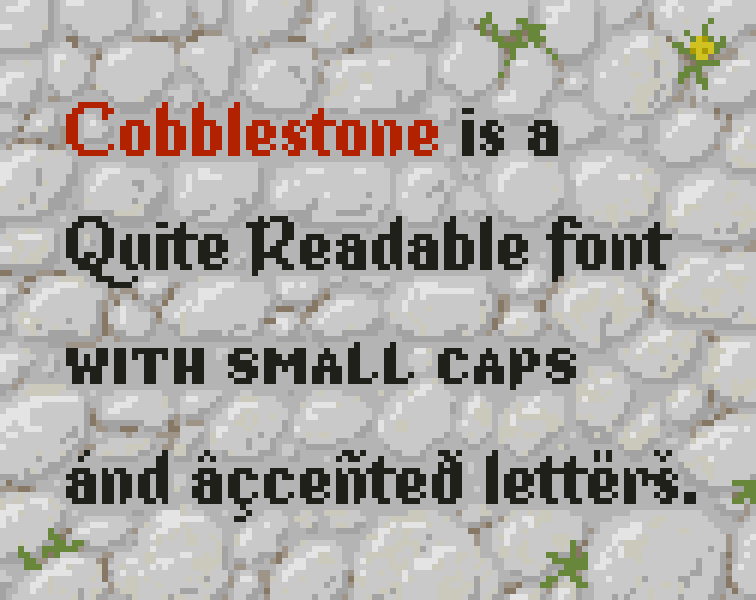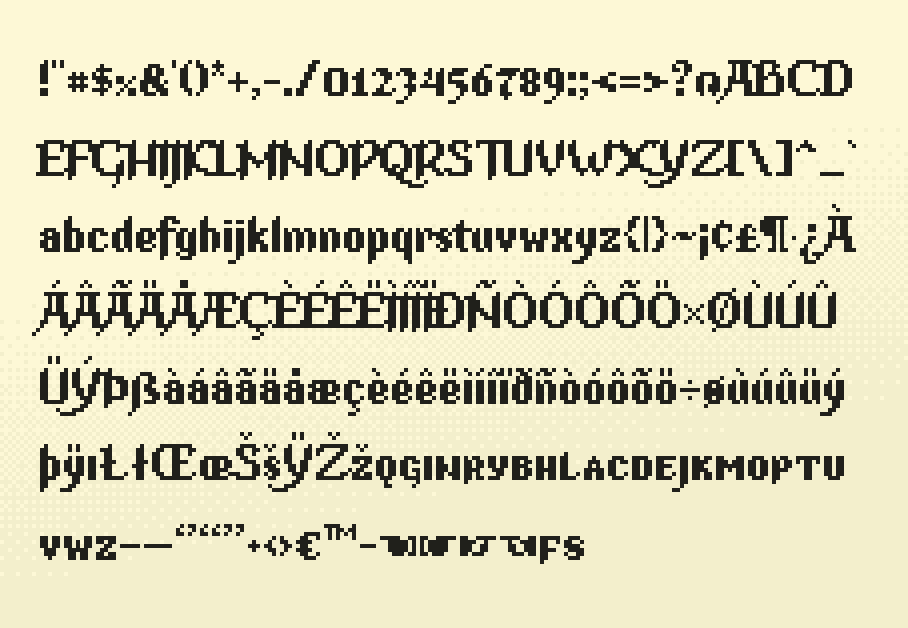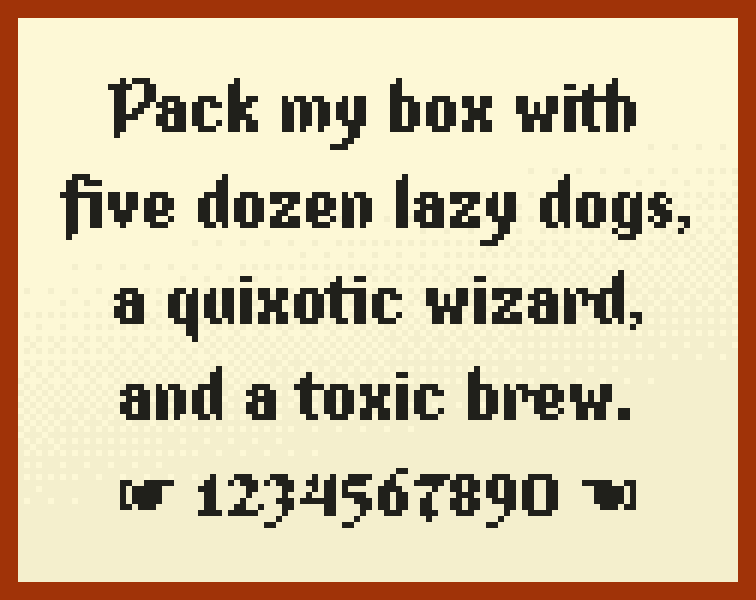
Cobblestone font
Cobblestone is an easy-to-read pixel font with some light medieval pen styling. It has an x-height of 6px and a total height of 14px.